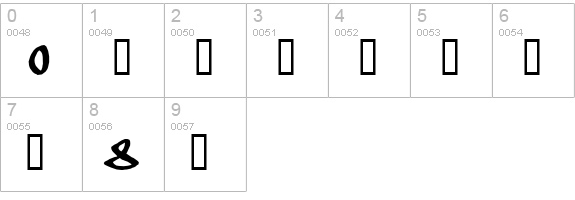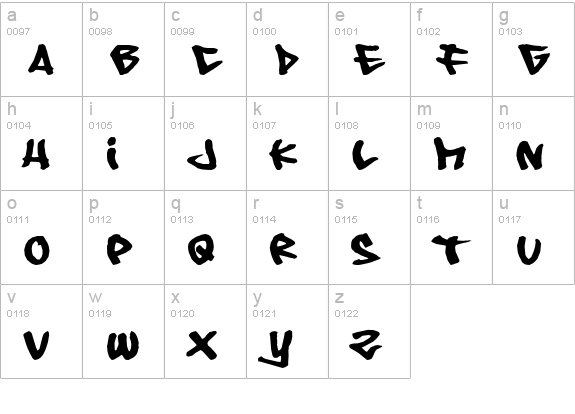
08 Underground Font Details
The 08 Underground font is a bold and edgy typeface that exudes a sense of urban coolness. With its sharp angles and geometric shapes, this font is perfect for creating eye-catching designs that demand attention. Whether you're designing a poster, logo, or website, this font will add a touch of modernity and uniqueness to your project. What sets 08 Underground apart is not only its striking aesthetics but also the fact that it is available for free. Yes, you read that right! This incredible font is freely available to download at FontsMarket.com. Now you can enhance your creative endeavors without breaking the bank. With its versatility and stylish appeal, 08 Underground is ideal for a wide range of applications. Its bold and powerful letterforms make it perfect for headlines and titles, while its legibility ensures that your message gets across loud and clear. Whether you're aiming for a gritty and urban look or a sleek and modern design, this font has got you covered. The attention to detail in the design of 08 Underground is evident, with each letter carefully crafted to create a visually captivating experience. From its sharp corners to its clean lines, this font embodies the spirit of underground culture and contemporary design. So why wait? Get your hands on the 08 Underground font today and unleash your creativity. Download it for free at FontsMarket.com and elevate your designs to the next level. Whether you're a graphic designer, typographer, or simply someone who appreciates the power of a great font, this is one you don't want to miss. Let 08 Underground be the foundation of your next design masterpiece.